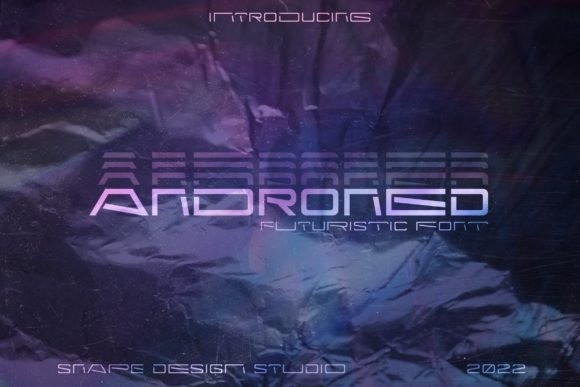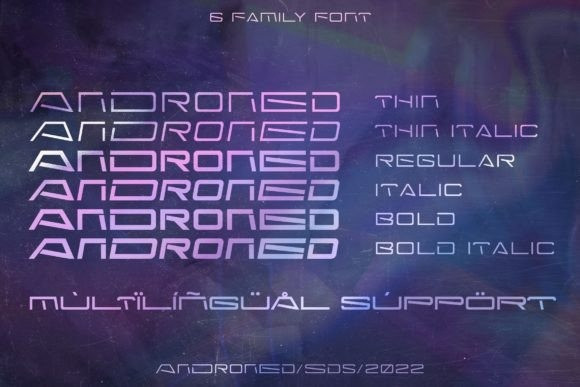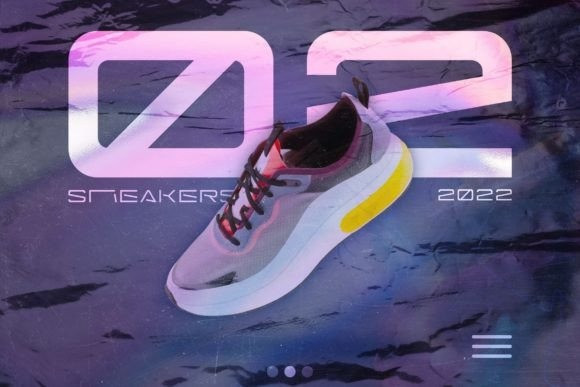
Androned Font
Androned is a modern font with a design that reflects the future and sophistication. This font was inspired by today’s advanced technology that will be more sophisticated in the future. It will add a luxury spark to any design project that you wish to create!